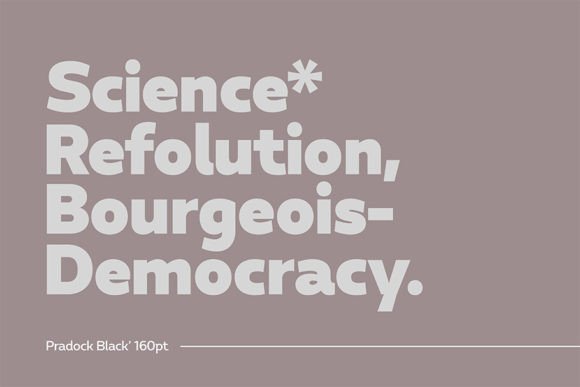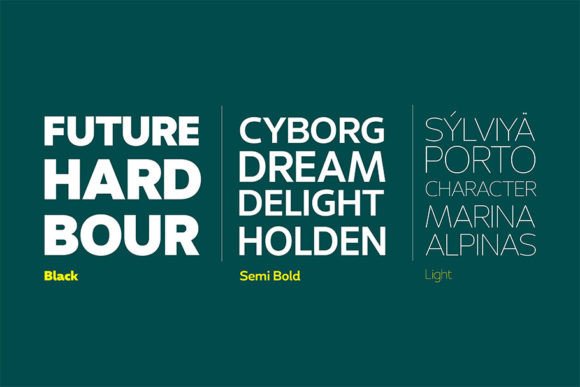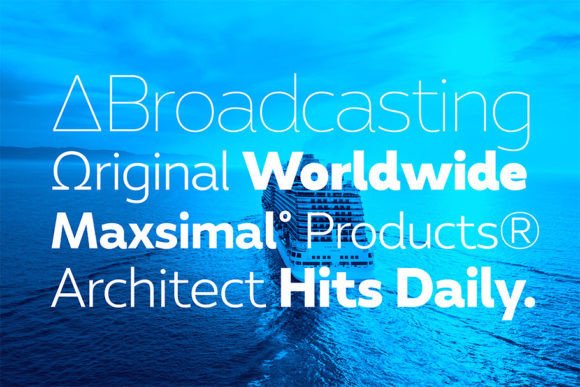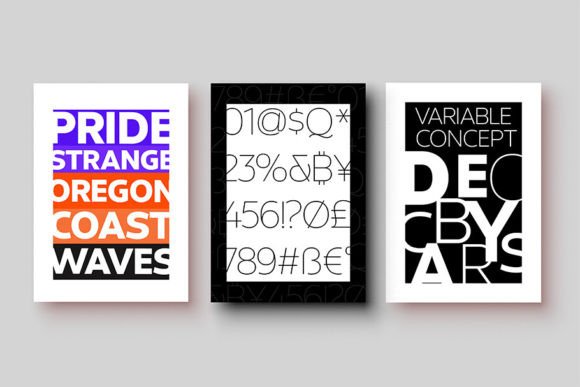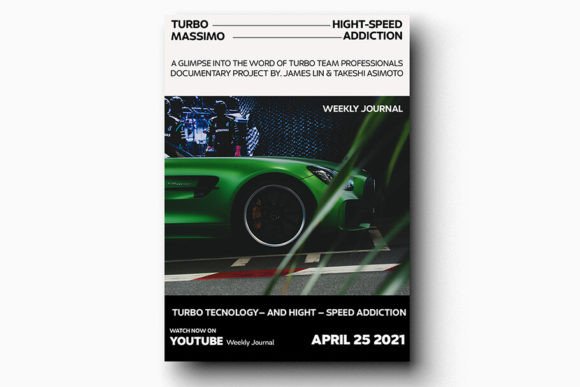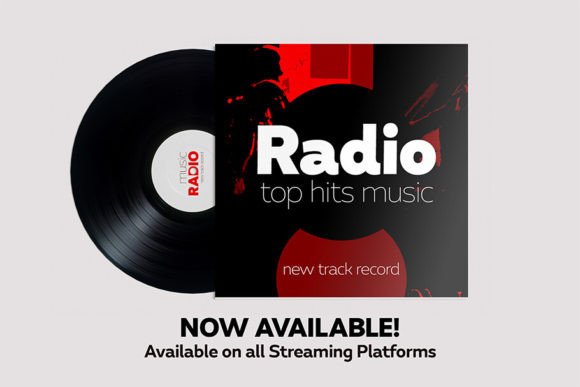
Introduction to Pradock Font
Pradock the newest geometric Sans-Serif font for a family is easy to use almost anywhere on your website, be it in the header or as smaller text with the Variable concept.
A font with a bold aesthetic that is energetic and youthful, this is an excellent choice for the millennial demographic – which is why it is so well suited to use by digital and creative agencies .
Key Features of Pradock Font